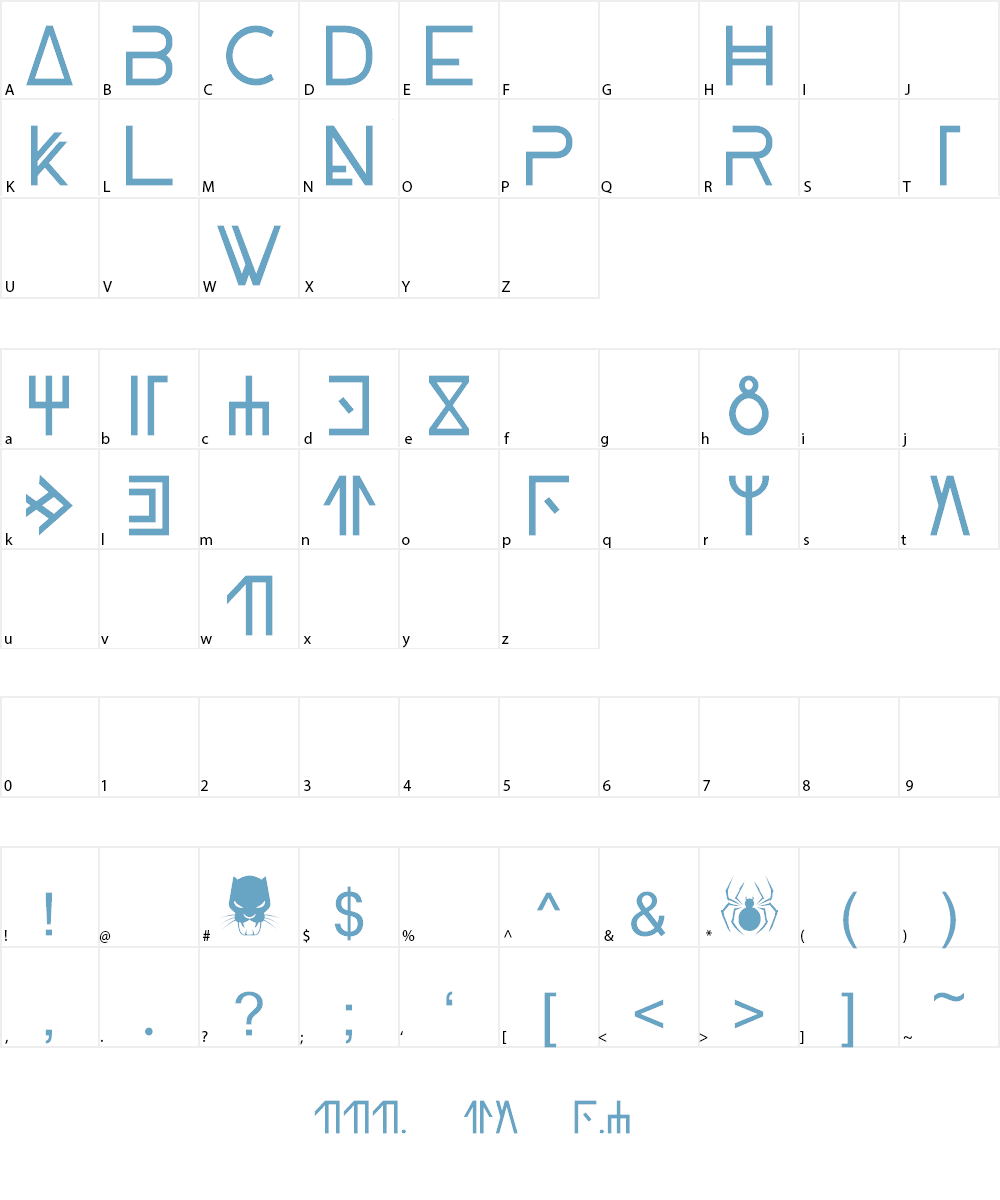
Simply put this is a dark translation hieroglyphic style typeface. The lowercase is based on the Wakandan style alphabet the upper case is a partial english translation similar to my Witchcraft typeface with double angled bars and stems. This fan-font is based on the hugely popular Marvel Black Panther superhero film from 2018.